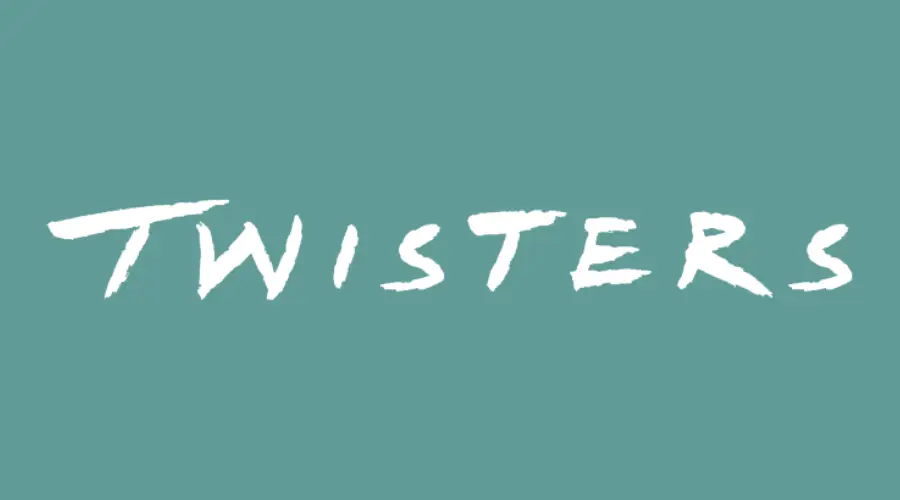
The Twisters Font is a unique typeface gaining attention for its connection to the upcoming movie Twisters (2024), a sequel to the iconic 1996 film Twister. This font captures the essence of stormy and chaotic designs, resonating well with the disaster theme of the movie. Though no official font has been released for the film, several fonts mimic the bold and dynamic style used in promotional materials.
Based on findings, here are fonts resembling the Twisters Font in style or vibe:
Binary by FG Studios
Closely resembles the font seen on the Twisters logo.
A bold, edgy typeface perfect for impactful designs.
Twister by Jens R. Ziehn
Shares a similar name and design concept.
Features distorted, whirlwind-inspired lettering.
Crimes Times Six by JSH Creates
Conveys a gritty and dramatic vibe, aligning with the chaotic tornado theme.
Grizzly Attack by Rometheme
Evokes a raw and aggressive energy, adding depth to stormy visuals.